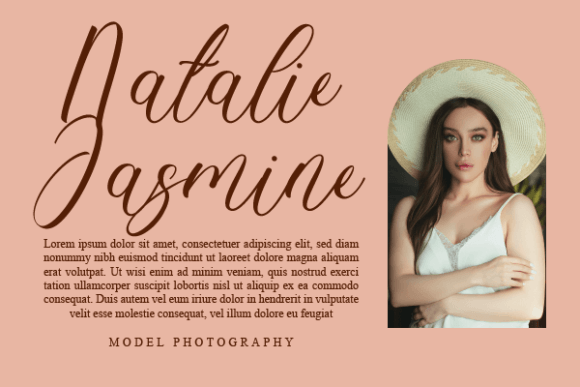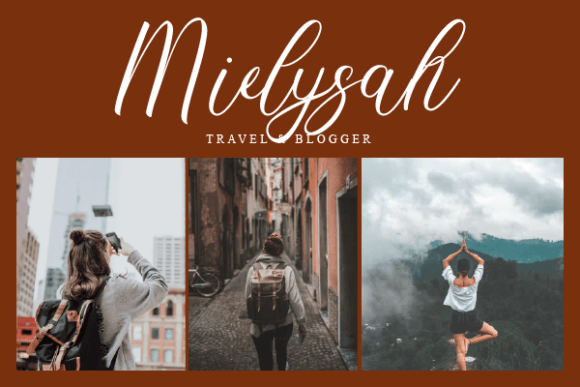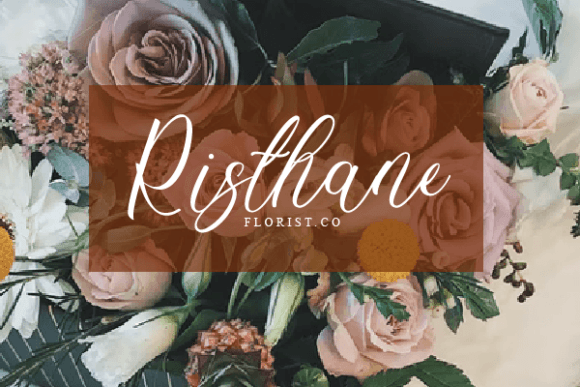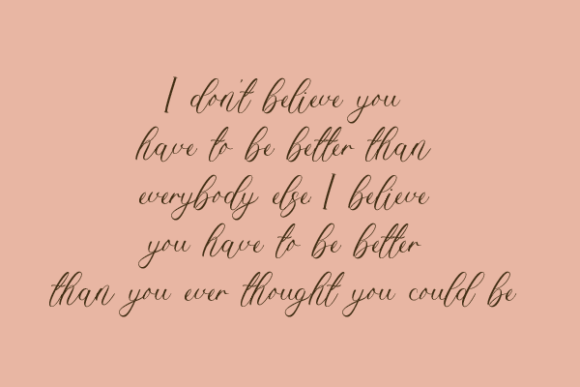
Aestron Jasmine Font: Elevate Your Designs with Elegant Handwritten Style
Are you a designer or crafter looking for a font that adds a touch of elegance and sophistication to your projects? Look no further than Aestron Jasmine Font. This beautiful handwritten font is perfect for a wide range of applications, from wall displays and wedding invitations to social media post logos and product packaging.
What Makes Aestron Jasmine Font Special?
Aestron Jasmine’s letters are carefully crafted to provide a perfect blend of elegance and playfulness. The font’s unique and flowing script style makes it ideal for designs that require a personal touch. Whether you’re creating a wedding invitation, a product label, or a social media post, Aestron Jasmine Font is sure to add a touch of sophistication and style.
Aestron Jasmine Font is versatile and can be used for a variety of projects, including:
- Wall displays: Add a touch of elegance to your wall displays with Aestron Jasmine Font.
- Wedding invitations: Make your wedding invitations truly special with this beautiful handwritten font.
- Social media post logos: Elevate your social media posts with a professional and stylish logo created using Aestron Jasmine Font.
- Advertisements: Use Aestron Jasmine Font to add a touch of sophistication to your advertisements.
- Product packaging: Make your product packaging stand out with this unique and elegant font.
- Product designs: Add a personal touch to your product designs with Aestron Jasmine Font.
- Labels: Create beautiful and stylish labels using Aestron Jasmine Font.
- Photography: Use Aestron Jasmine Font to add a touch of elegance to your photography watermarks.
- Invitations: Create beautiful and stylish invitations for any occasion using Aestron Jasmine Font.
- Stationery: Elevate your stationery with Aestron Jasmine Font.
Why Choose Aestron Jasmine Font?
There are many reasons why Aestron Jasmine Font is a great choice for designers and crafters. Here are a few:
- Unique and elegant style: Aestron Jasmine Font has a unique and elegant style that will set your designs apart from the rest.
- Versatile: This font can be used for a wide range of applications, making it a great addition to any designer’s toolkit.
- High-quality: This font is created with high-quality craftsmanship, ensuring that it will look great in any design.
Tips for Using Aestron Jasmine Font
Here are a few tips for using Aestron Jasmine Font in your designs:
- Use it sparingly: Aestron Jasmine Font is a beautiful font, but it can be overwhelming if used too much. Use it sparingly to add a touch of elegance to your designs.
- Pair it with other fonts: Aestron Jasmine Font pairs well with other fonts, so don’t be afraid to experiment with different combinations.
- Adjust the size and color: Experiment with different sizes and colors to find the perfect look for your design.
Aestron Jasmine Font is a beautiful and elegant handwritten font that is perfect for designers and crafters. Its unique and flowing script style makes it ideal for a wide range of applications, from wall displays and wedding invitations to social media post logos and product packaging. With its versatility, ease of use, and high-quality craftsmanship, Aestron Jasmine Font is a great addition to any designer’s toolkit.